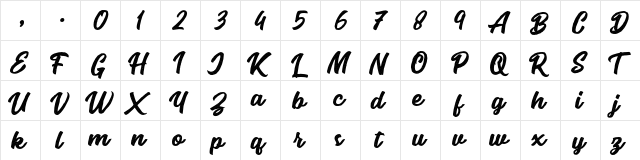
Seact Rough Regular
| Foundry | Runsell Studio |
| Designer | Satia Hayu Prabowo |
Design Context for Seact Rough Typeface
Seact Rough embraces imperfection — its rough, textured character adds raw authenticity to designs that want to feel lived-in and unconventional.
Suited to punk-influenced zines, underground music branding, streetwear, and raw, anti-corporate design.
Pro Tip: Pair Seact Rough with intentionally raw or lo-fi design elements. Fighting against it with overly polished surroundings will undermine its personality.